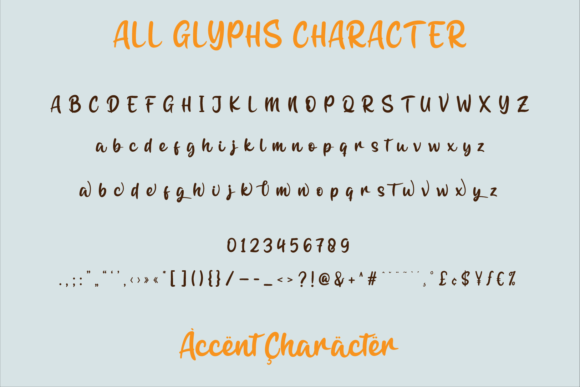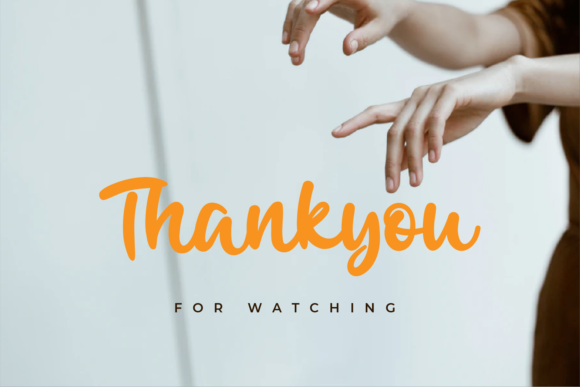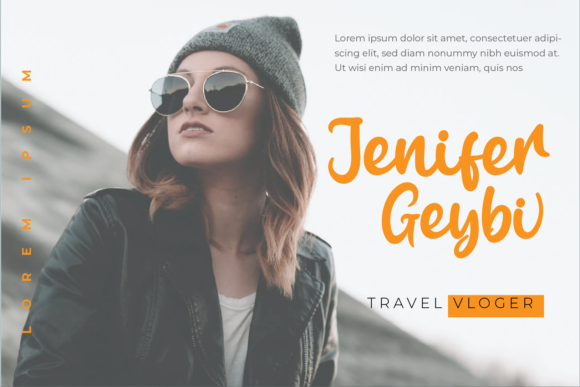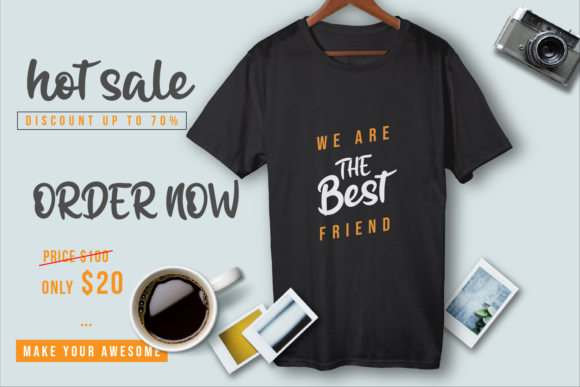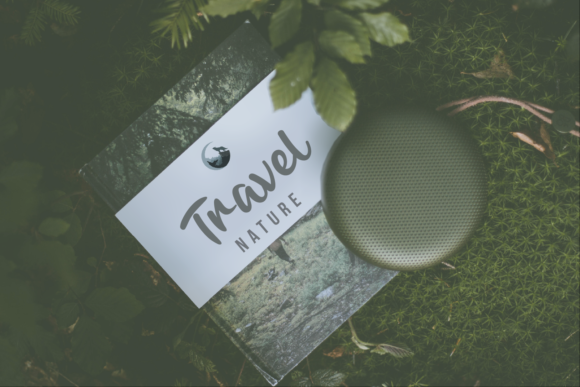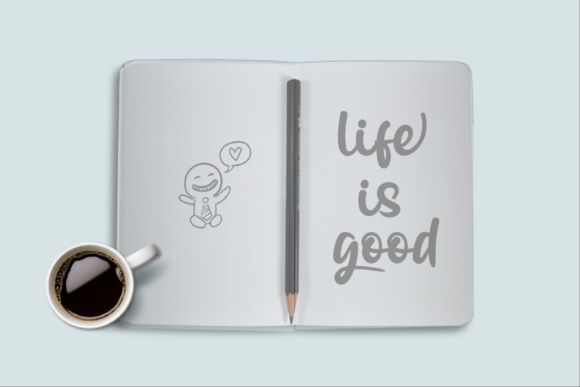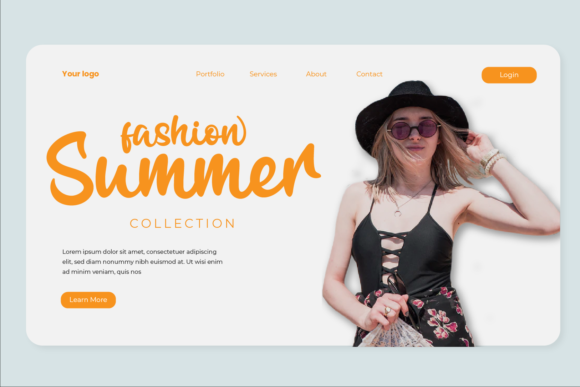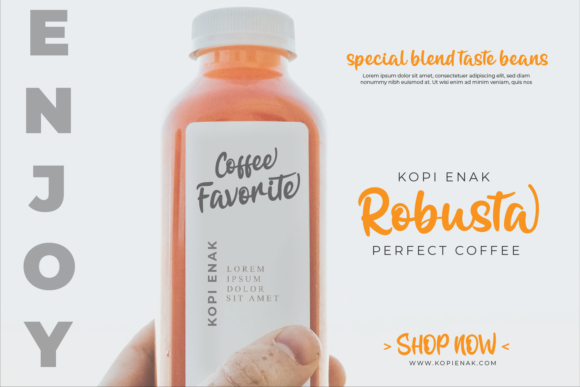
Determine Font
Determine is a flowing and simple handwritten font, ideal for your original projects. Fall in love with its incredibly distinct and timeless style and use it to create spectacular designs!